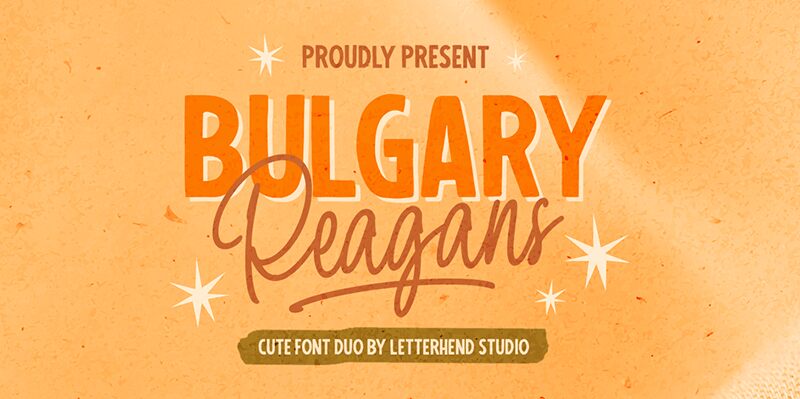
Bulgary Reagans Script font family by Letterhend Studio is a smooth handwritten free font inspired by vintage styles but made with modern applications in mind. It is engaging, inviting, and expressive, making it a great option for human-centered digital experiences. The font contains 2 font styles available for download, one being regular and the other italic. The italic adds extra dimension due to its cursive nature – it feels effortless and easy to read. It’s a bold font with brush pen style strokes, a great option for designers with an eye for details.
Technique and style make this typeface a great choice for diverse applications. Use it in logos, branding projects, apparel and t-shirt designs, greeting cards, magazines, etc. Posters, quotes, and advertising are also great use cases that will allow this italic font to shine.